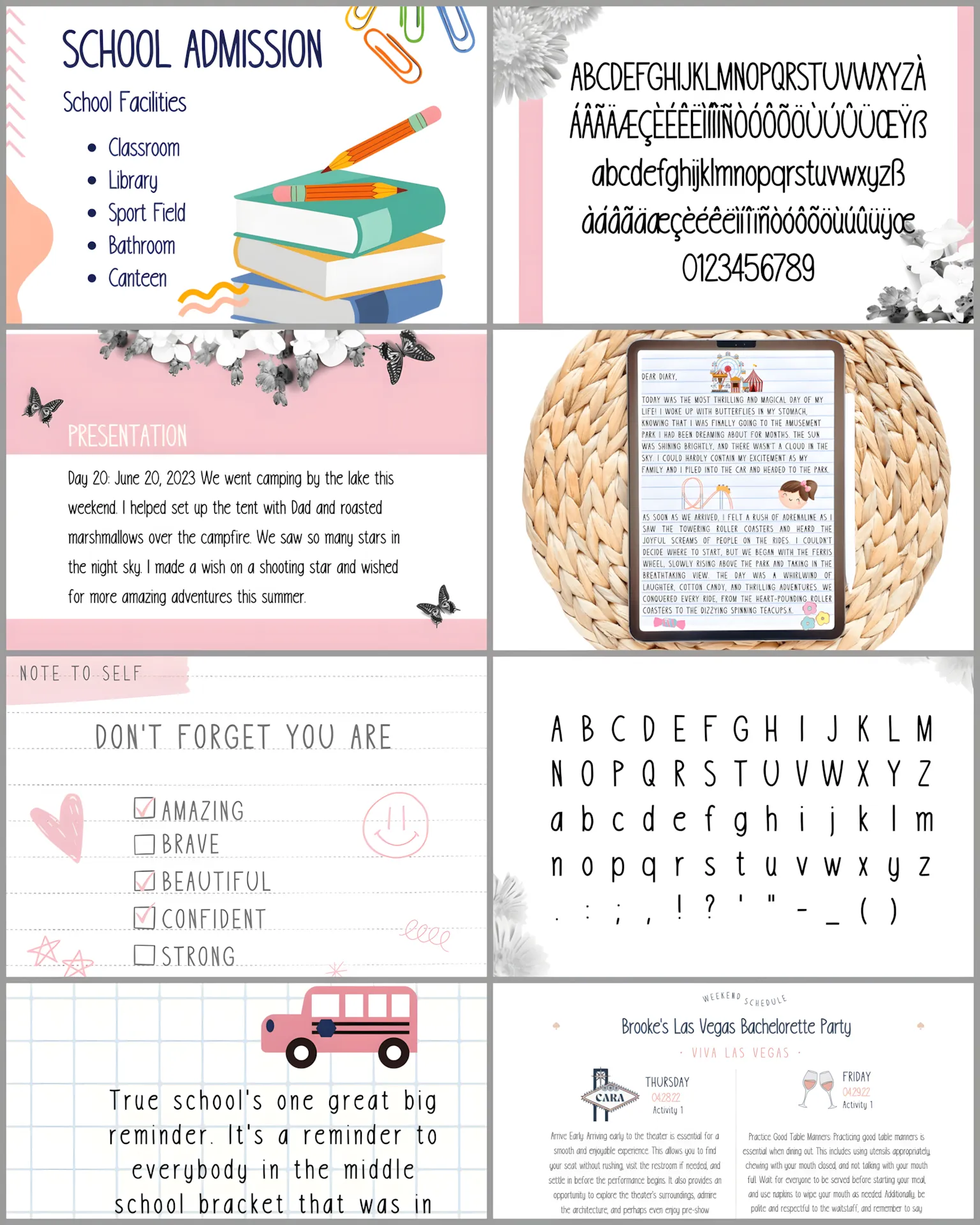
A Natural Handwritten Typeface Inspired by Everyday Classroom Notes
Student Autumn is a relaxed, handwritten script font that captures the charm of genuine, everyday handwriting. Designed to feel warm, approachable, and unmistakably human, this typeface mirrors the imperfect rhythm of notes scribbled in notebooks and margins—simple, legible, and full of personality.
The letterforms are clean and unpretentious, striking a balance between casual expression and practical readability. Nothing feels overly styled or artificial. Instead, the font maintains a natural flow that makes text feel personal, familiar, and inviting.
Student Autumn is especially well suited for educational and creative contexts. Worksheets feel friendlier. Planners feel more personal. School projects, greeting cards, journals, and craft designs gain a subtle, handwritten authenticity that resonates with both children and adults alike.
The font includes a complete character set with uppercase and lowercase letters, numerals, and punctuation—ensuring flexibility across a wide range of uses. Whether applied to digital designs or print materials, it maintains consistency and clarity without losing its handwritten warmth.
Designed for teachers, students, and creatives who value approachability and sincerity, Student Autumn transforms ordinary text into something more personal—bringing the quiet familiarity of handwritten notes into modern design spaces.